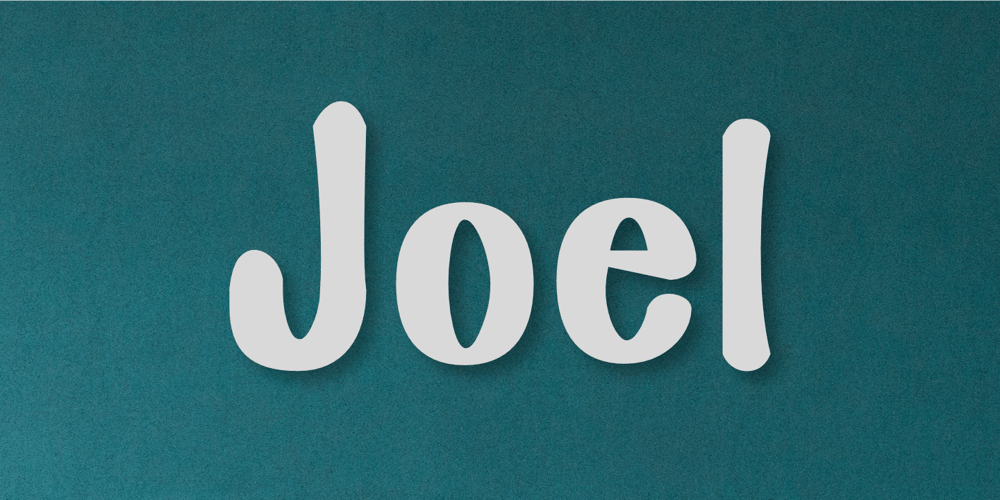
Joel Font Family was designed by Aldy Sidik and published by Epiclinez. Joel contains 1 styles and family package options. Introducing Joel, a display font that will bring your design to life! With its bold and playful style, this readable cartoon font is perfect for grabbing attention and leaving a lasting impression. Whether you need it for headlines, branding, logotypes, or any other creative project, Joel is here to make your message stand out from the crowd. Its unique design ensures legibility even at small sizes, making it versatile for all your design needs. Get ready to infuse some fun and personality into your projects with Joel!Joel Font includes : Standard Latin Numbers, symbols, and punctuations Multilingual Support. Fully accessible without additional design software Simple Installations Works on PC & Mac Thank You.